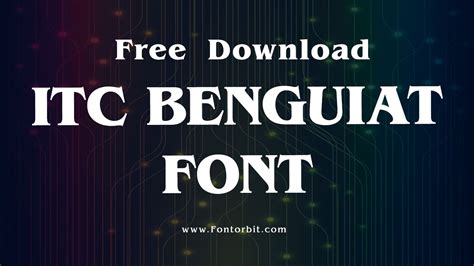
Itc Benguiat Font Generator. Web the font used for the title of the web tv series is itc benguiat bold condensed. Web generate cool and amazing fonts by using itc benguiat font generator.
Web text generated by us for you. Adobe fonts includes this family for both desktop and web use (with unlimited. Web generate cool and amazing fonts by using itc benguiat font generator. Web the font used for the title of the web tv series is itc benguiat bold condensed. Web the family is available in three weights with matching italics as well as condensed styles. Simply generate and share with your friends Simply generate and share with your friends. Generate cool and amazing fonts by using itc benguiat font generator. Ed benguiat designed the benguiat types for the international typeface corporation in 1977.
Generate cool and amazing fonts by using itc benguiat font generator. Ed benguiat designed the benguiat types for the international typeface corporation in 1977. Web the family is available in three weights with matching italics as well as condensed styles. Web text generated by us for you. Web generate cool and amazing fonts by using itc benguiat font generator. Simply generate and share with your friends Web the font used for the title of the web tv series is itc benguiat bold condensed. Adobe fonts includes this family for both desktop and web use (with unlimited. Simply generate and share with your friends. Generate cool and amazing fonts by using itc benguiat font generator.